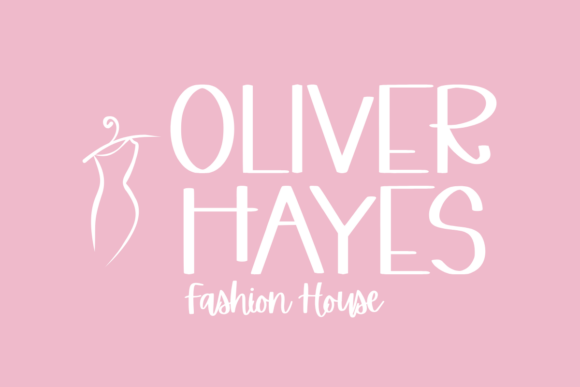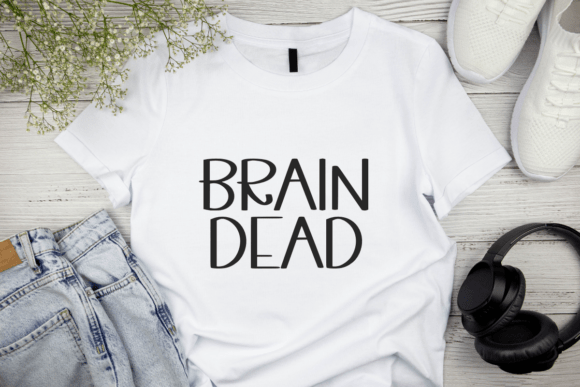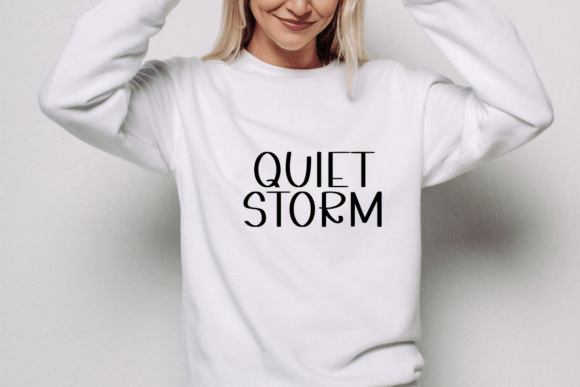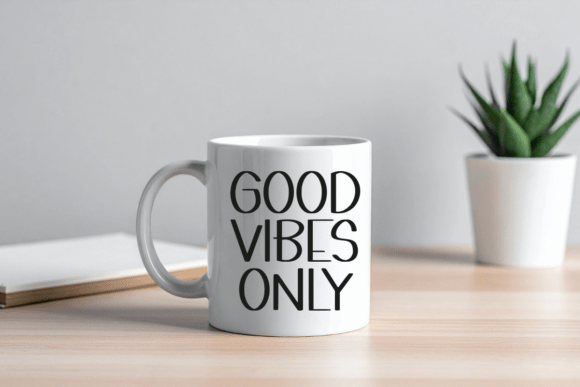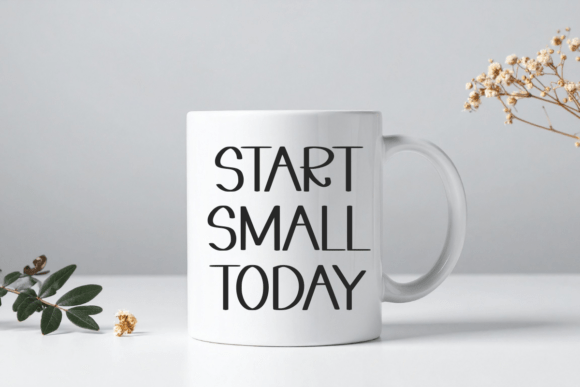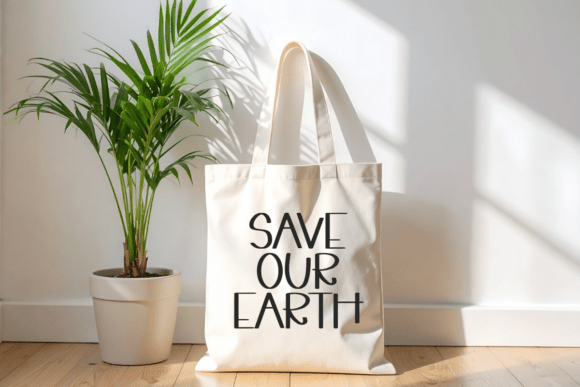
Introducing Beautiful Birthday: The Perfect Font for Crafty Designs
Are you a crafter, designer, or DIY enthusiast looking for a font that adds a personal touch to your projects? Look no further than Beautiful Birthday, a charming sans serif handwriting font that’s perfect for a variety of creative endeavors. With its soft, friendly, and natural look, this font is sure to become your go-to for all your crafting needs.
The Characteristics of Beautiful Birthday
Beautiful Birthday is designed to mimic the warmth and coziness of handcrafted elements. Its simple strokes and smooth curves create a gentle, approachable feel that’s ideal for projects that require a personal touch. This font is perfect for crafty moms, teachers, and designers who love working with adorable handwritten styles.
What Makes Beautiful Birthday So Versatile?
One of the best things about Beautiful Birthday is its versatility. This font can be used for a wide range of projects, including:
- Craft projects: Add a personal touch to your scrapbooks, journals, and DIY designs with this charming font.
- Planners and organizers: Use Beautiful Birthday to create custom labels, headings, and titles for your planners and organizers.
- Stickers and kids’ worksheets: This font is perfect for creating fun and engaging stickers and worksheets for kids.
- Classroom printables: Teachers can use Beautiful Birthday to create educational materials, such as posters, charts, and activity sheets.
- DIY designs: Whether you’re making custom signs, decorations, or gifts, this font is sure to add a touch of warmth and personality to your designs.
Perfect for Cutting Machines
Beautiful Birthday is also optimized for use with cutting machines like Cricut and Silhouette. Its smooth curves and simple strokes make it easy to cut and weed, ensuring that your projects turn out perfectly every time.
Ideas for Using Beautiful Birthday
Here are some ideas to get you started:
- Quotes and posters: Use Beautiful Birthday to create inspiring quotes and posters for your home or office.
- Greeting cards: Add a personal touch to your greeting cards with this charming font.
- Kids’ labels: Create custom labels for your kids’ folders, backpacks, and water bottles.
- Coloring pages: Use Beautiful Birthday to create fun and engaging coloring pages for kids.
- Worksheets and bullet journals: This font is perfect for creating custom worksheets and bullet journals.
- Scrapbooks and photo albums: Add a personal touch to your scrapbooks and photo albums with Beautiful Birthday.
Why Choose Beautiful Birthday?
With so many fonts to choose from, why should you choose Beautiful Birthday? Here are just a few reasons:
- Unique and charming: This font has a unique and charming personality that’s sure to set your projects apart.
- Easy to read: Beautiful Birthday is easy to read, even at small sizes.
- Versatile: This font can be used for a wide range of projects, from crafty designs to educational materials.
- Optimized for cutting machines: Beautiful Birthday is optimized for use with cutting machines like Cricut and Silhouette.